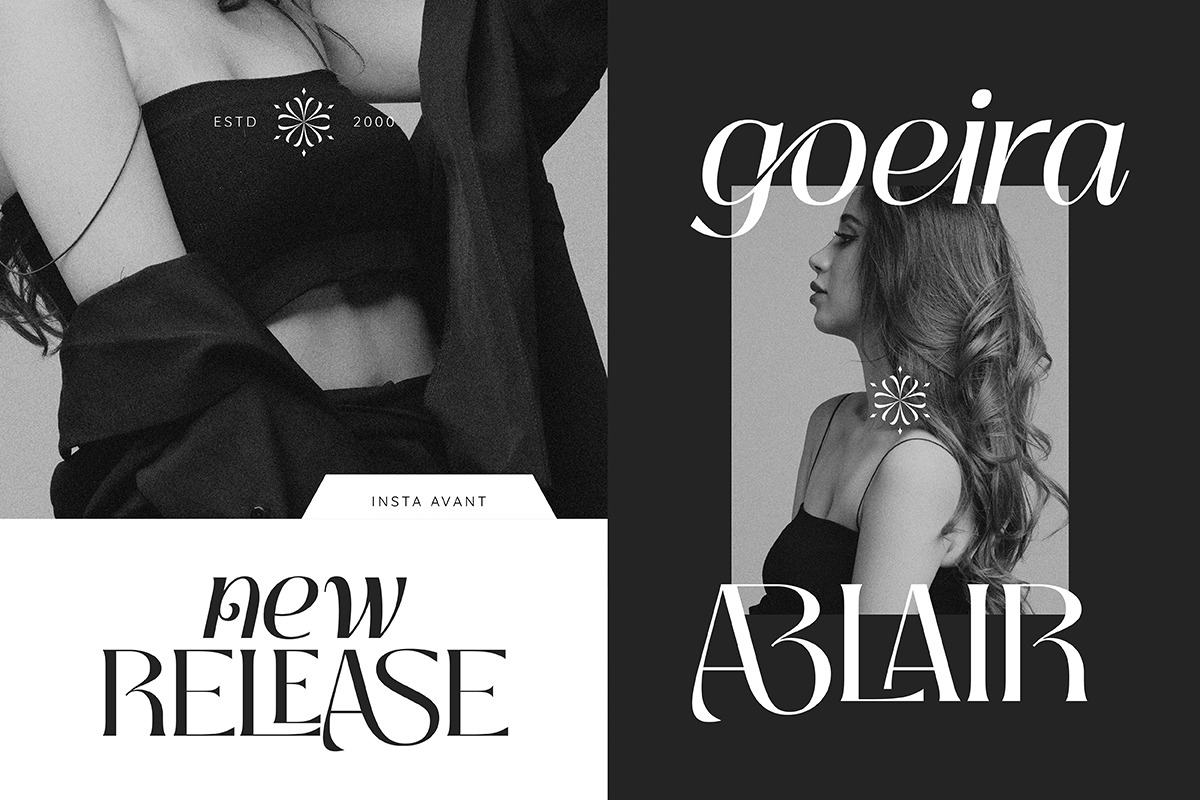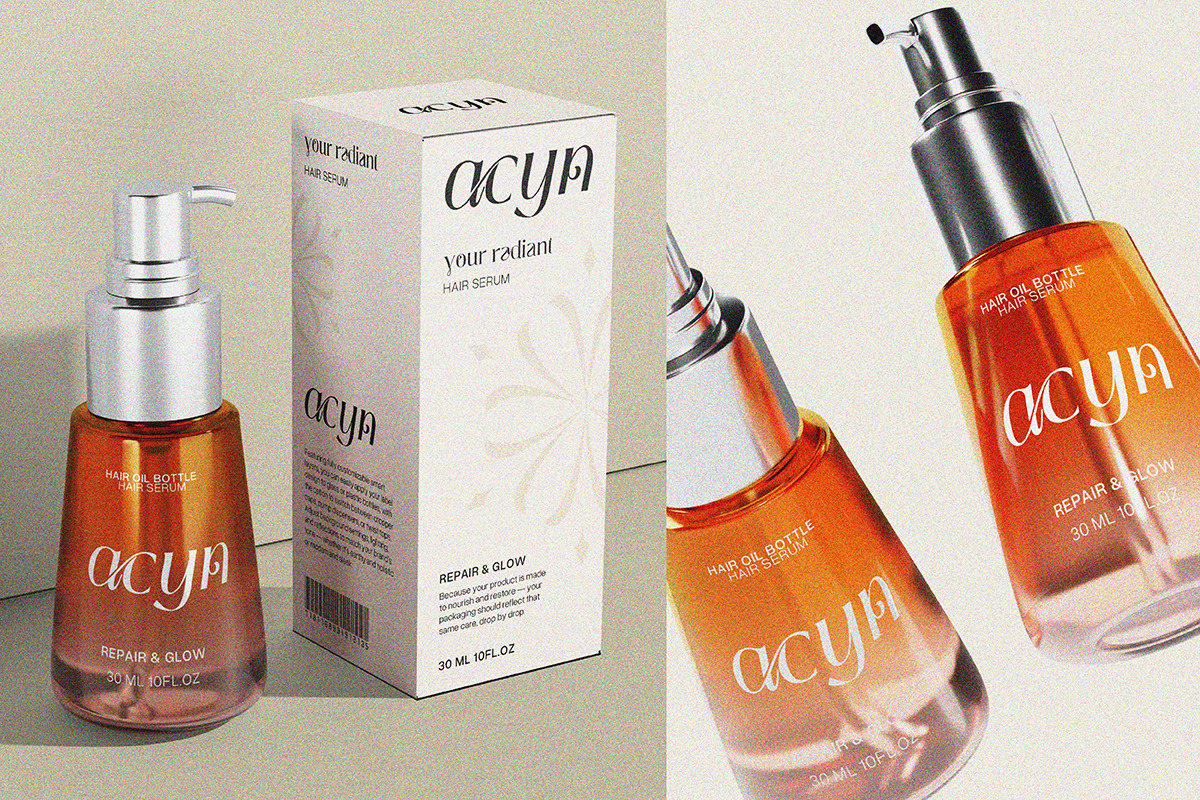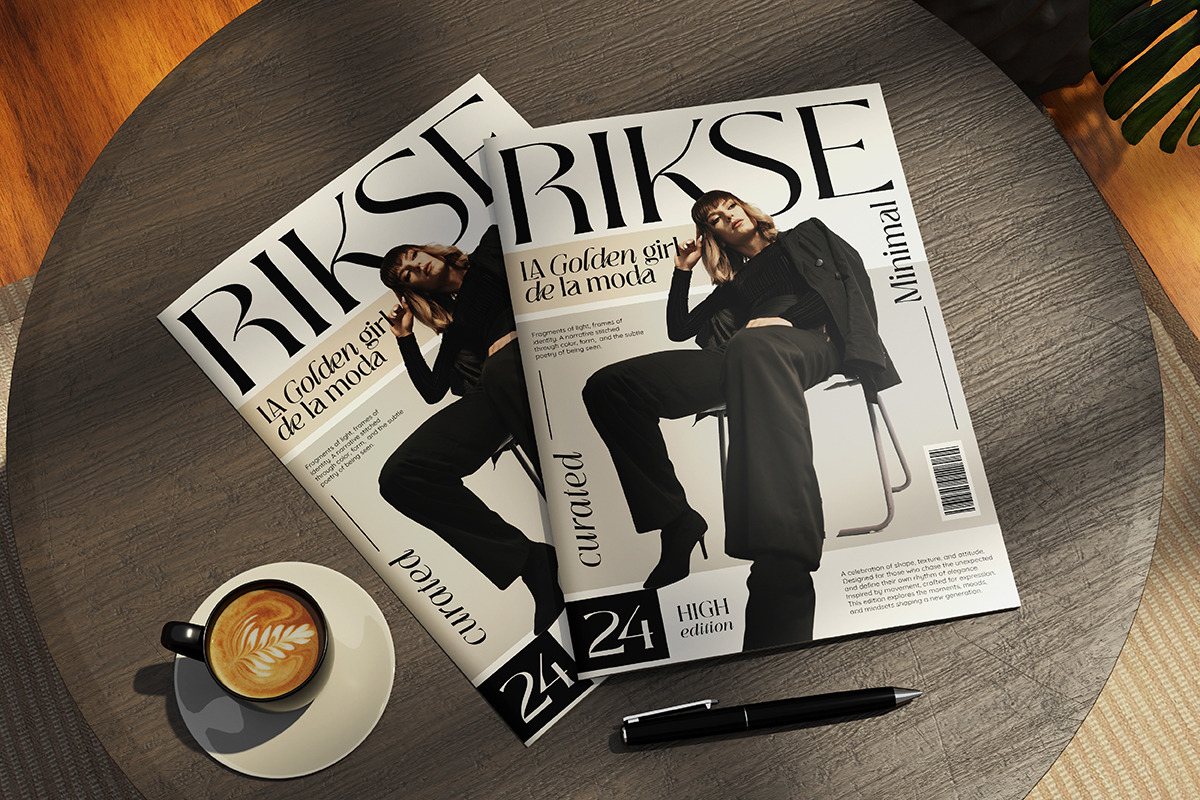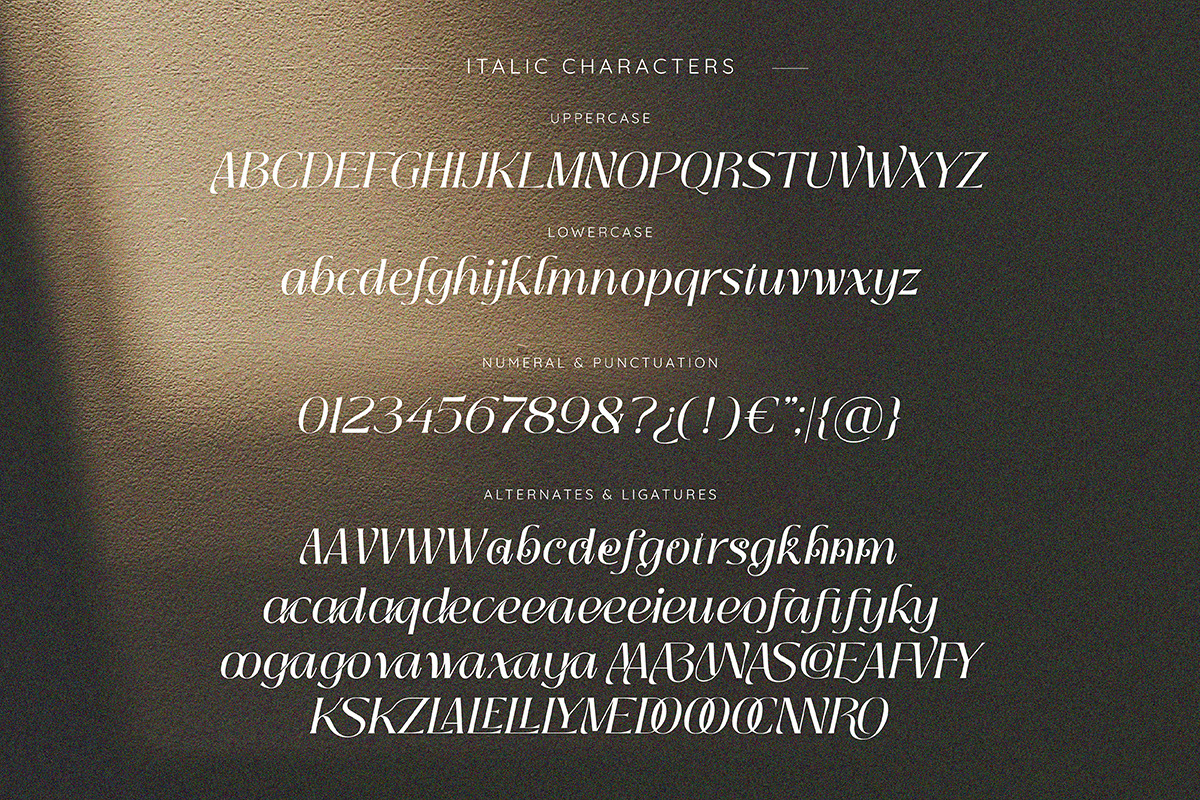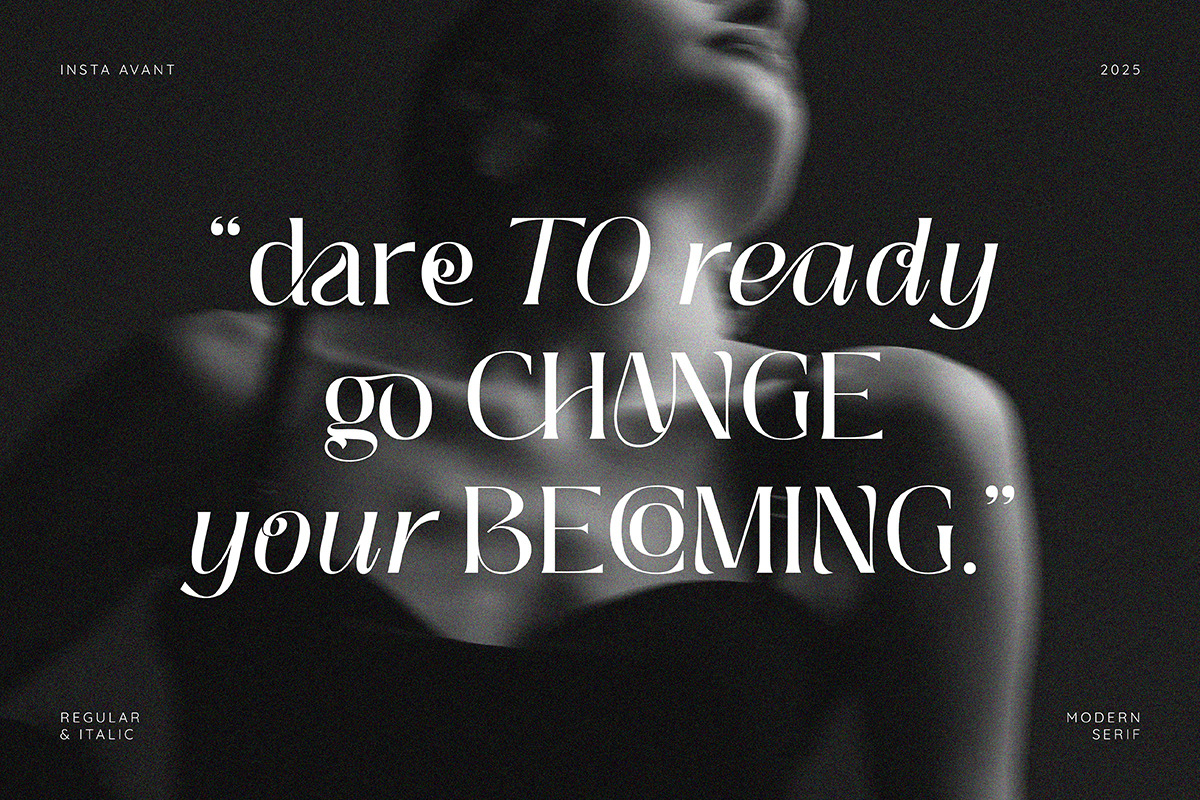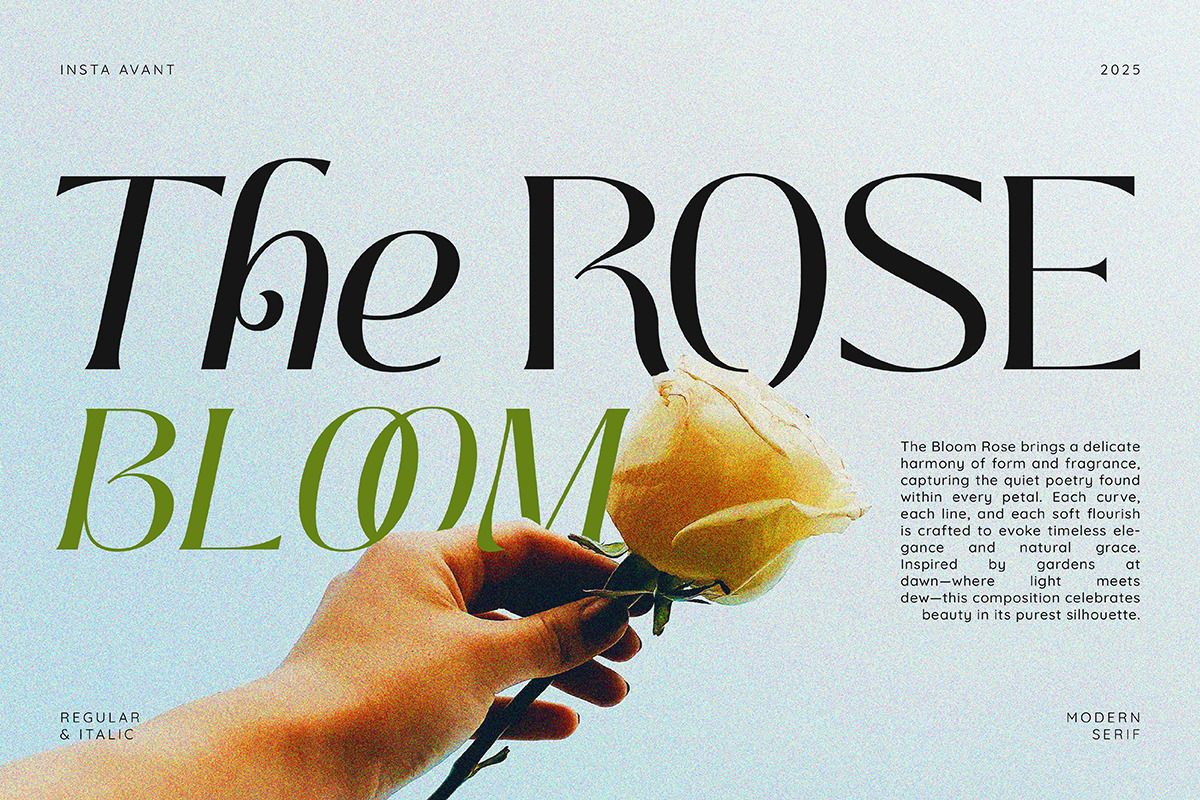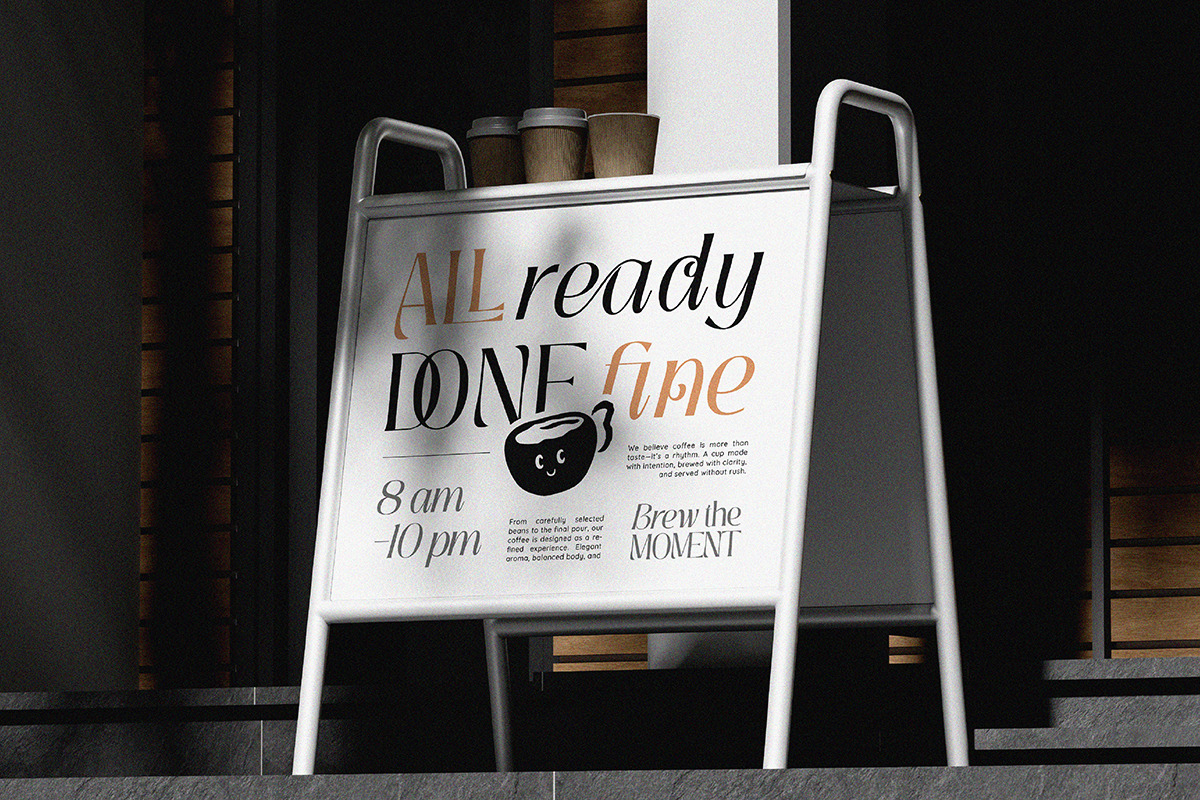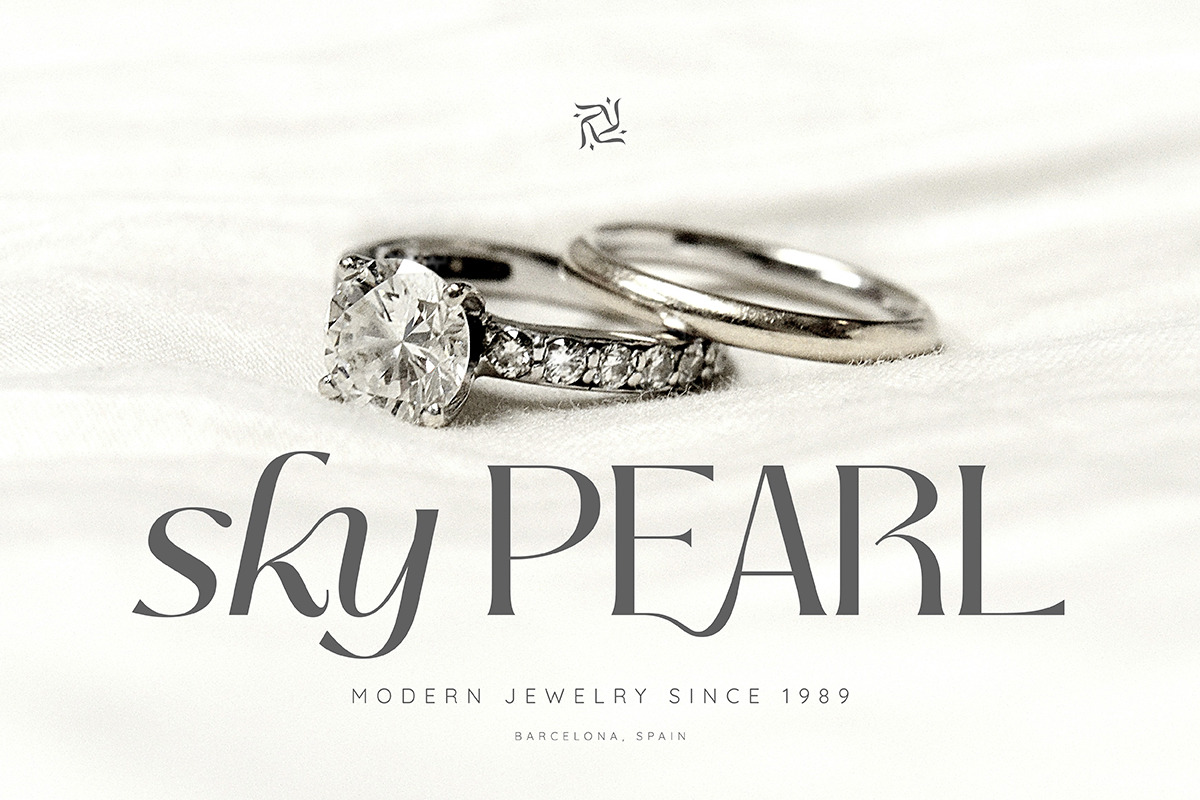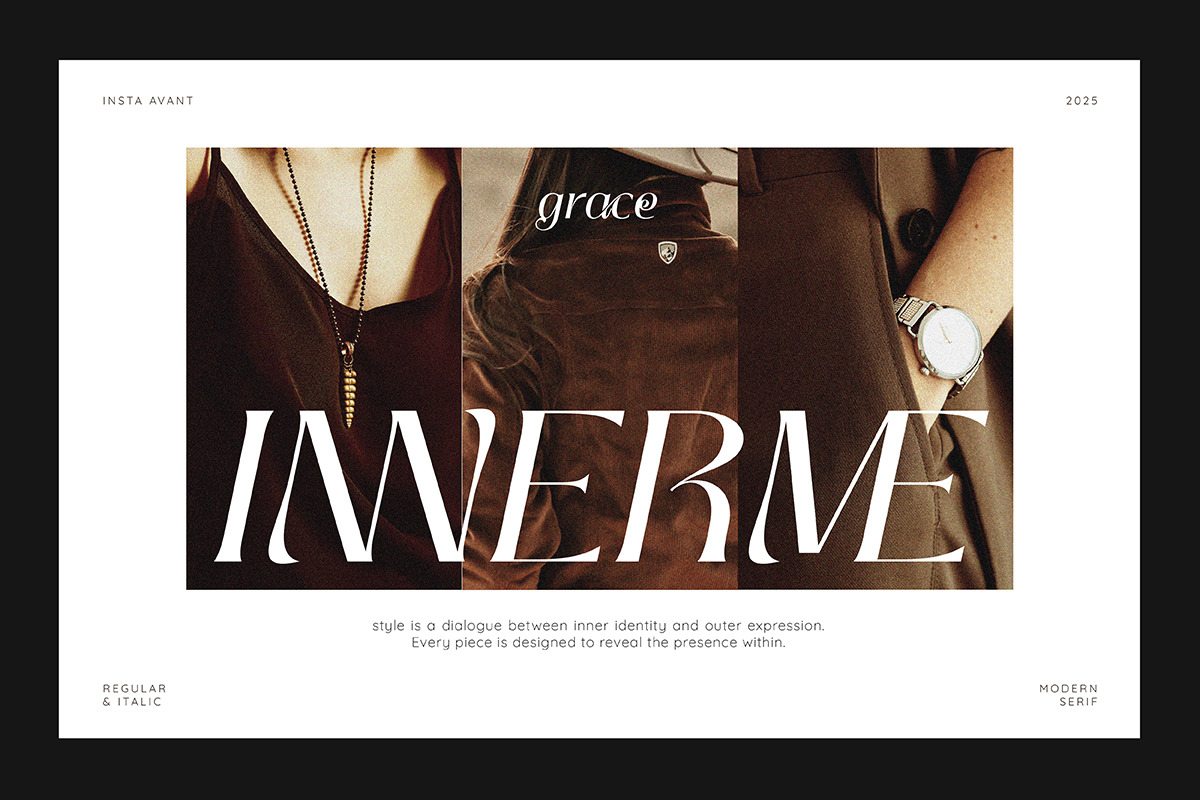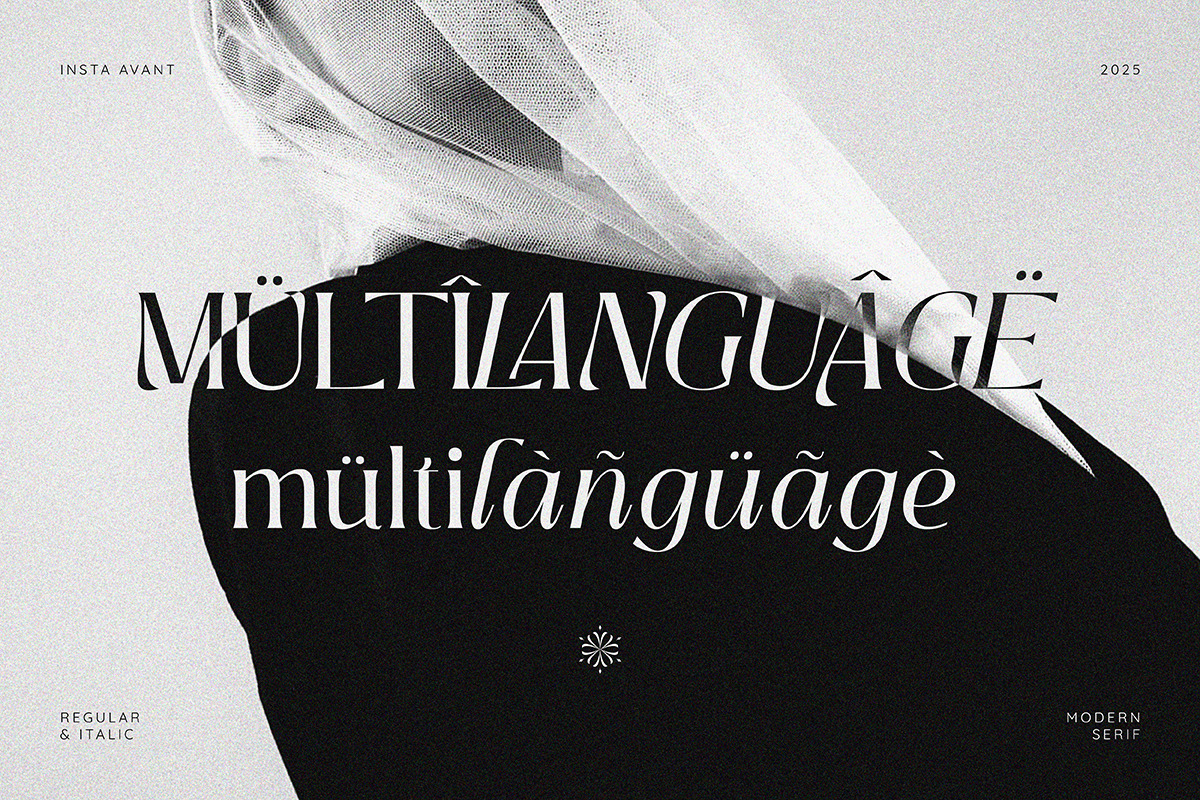
Insta Avant | Ligature Elegant Serif
Proudly present Insta Avant Typeface, created by ClevUs, A Ligature modern serif; calligraphic italic that has own unique style modern look. This typeface is perfect for an elegant luxury logo, book or movie title design, fashion brand, magazine, clothes, lettering, quotes, and so much more.
Letters, numbers, symbols, and punctuation
101 alternates and ligatures